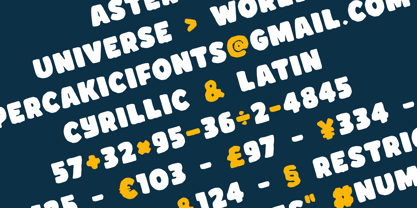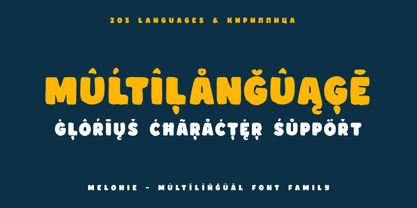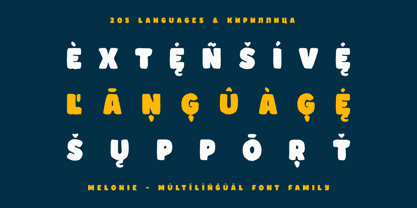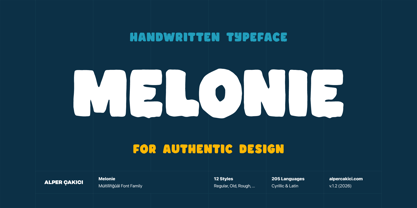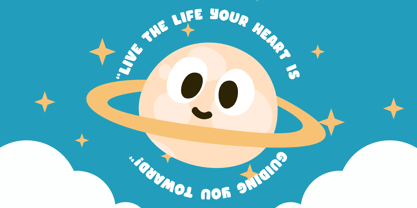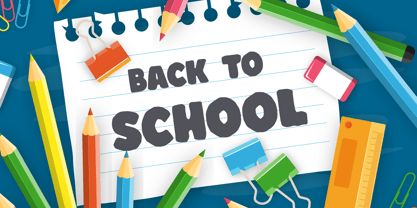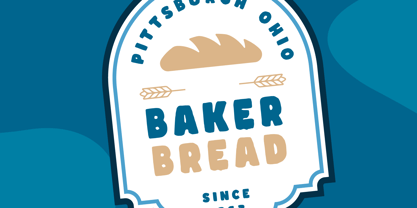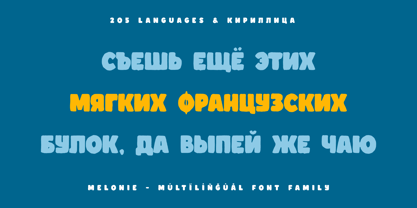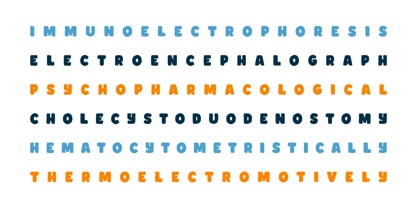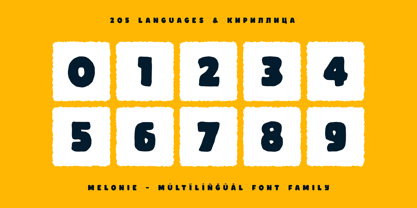
Melonie
by AlperCakici
The Melonie Font Family was designed by Alper Çakıcı and published by AlperCakici. Melonie contains 1 styles. More about this family
Melonie - A Display Font : Melonie is a carefully crafted display font. It has Extended Latin and Cyrillic characters. It created for poster, web, brand and social media designs.
Designers: Alper Çakıcı
Foundry: AlperCakici